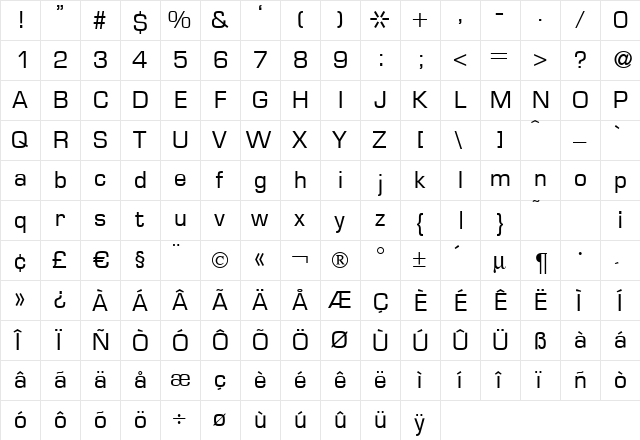
Eurasia Regular
Design Context for Eurasia Typeface
Eurasia offers clean, dependable letterforms without strong stylistic allegiance, making it a practical choice for designers who need flexibility.
Pro Tip: Use Eurasia in both headline and body roles to test its range before committing to a single application.